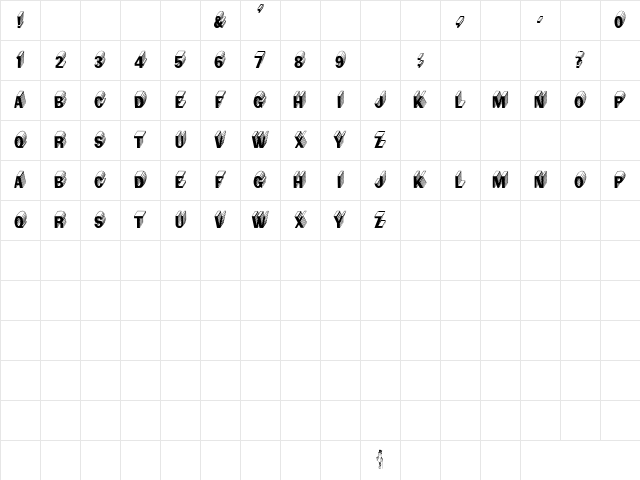
Carved 1 Regular
Design Context for Carved 1
Carved 1 is a composed and adaptable typeface that performs quietly and consistently across a wide range of design contexts.